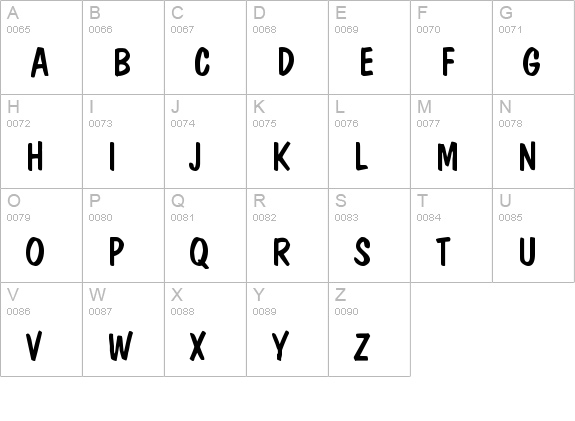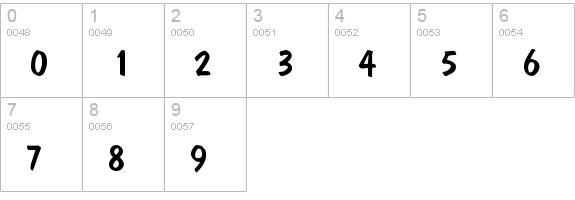
Brush Dom Regular is the standard, neutral variant in the Brush typeface family \xE2\x80\x94 well suited to general body text, paragraphs, and standard typographic work.
Brush Dom Regular font is a versatile and modern typeface that adds a touch of creativity and elegance to any design project. With its handwritten brush strokes and clean lines, this font is perfect for a wide range of applications, from logos and branding to invitations and social media graphics. The best part? Brush Dom Regular font is completely free to download at FontsMarket.com! Whether you are a designer looking to add a unique flair to your projects or someone in need of a stylish and eye-catching font for personal use, Brush Dom Regular has got you covered. Don't miss out on the opportunity to elevate your designs with this beautiful and freely available font. Download it today and let your creativity shine!